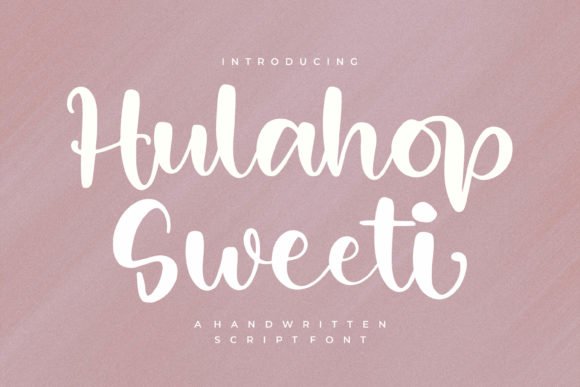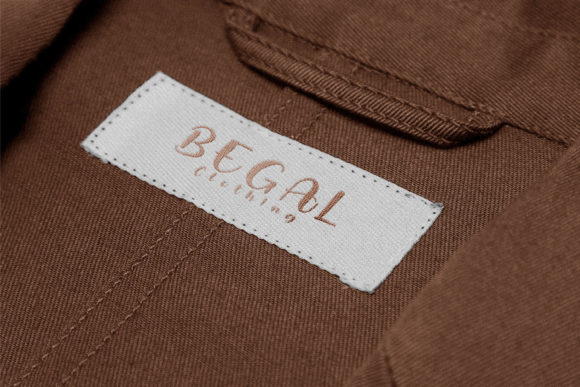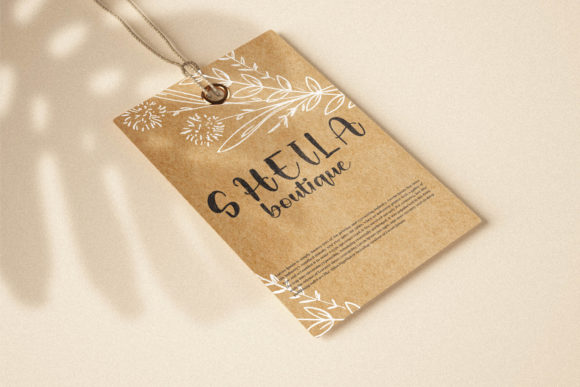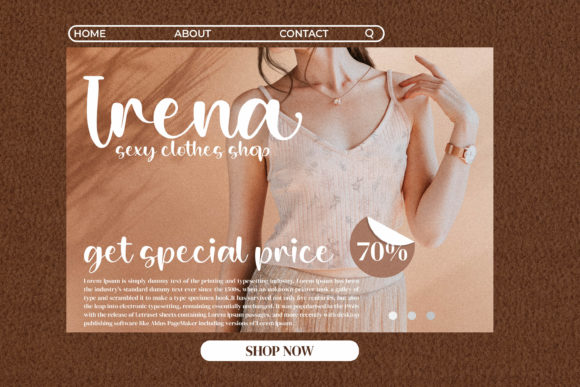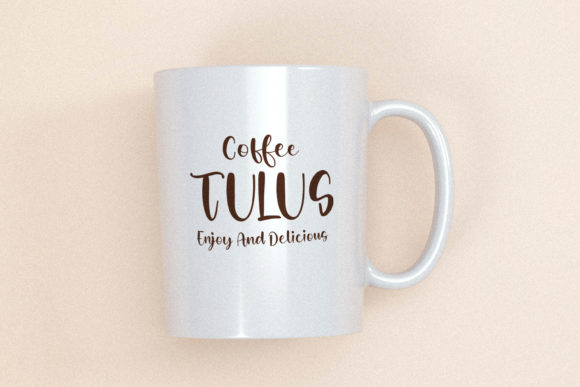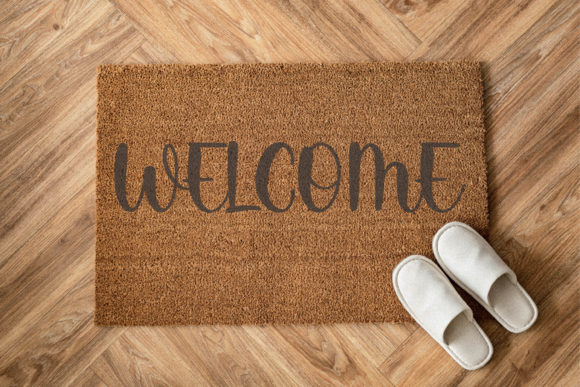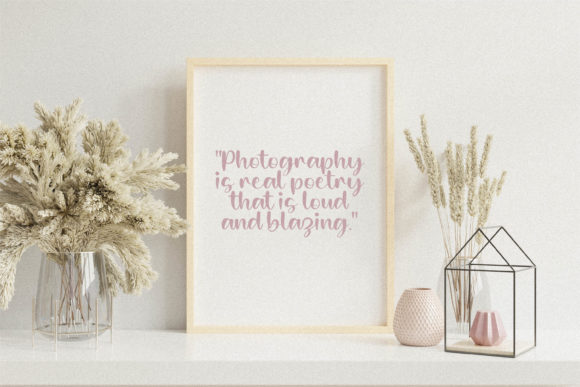
The Magic of Handwritten Letters
Have you ever stared at a beautiful handwritten letter or a delicate wedding invitation and wished you could recreate that same magic in your designs? As a designer, I’m sure you’ve found yourself searching for the perfect font to add that extra touch of elegance to your projects. This is where the Hulahop Sweet Font comes in – a truly enchanting script font that will transport your designs to a world of whimsy and romance.
With its PUA encoded design, accessing the full range of glyphs and swashes is a breeze, allowing you to unlock the full potential of this beautiful font. Whether you’re a seasoned designer or just starting out, the Hulahop Sweet Font is an invaluable addition to your toolkit, offering endless possibilities for creating stunning, one-of-a-kind designs that will leave a lasting impression.
Hulahop Sweet Font Key Features
- Font Family: Hulahop Sweet is a sweet, whimsical, and playful font family designed for various creative applications.
- Character Set: Includes a wide range of characters, including uppercase and lowercase letters, numbers, punctuation marks, and special characters.
- Unique Characteristics: Features a unique, hand-drawn style with subtle imperfections, giving it a personal and charming touch that sets it apart from other fonts.
Hulahop Sweet Font Review
Overall, I think Hulahop Sweet Font is a lovely addition to any designer’s toolkit. ✨ Its playful, whimsical vibe makes it perfect for projects that need a touch of fun and personality. I particularly enjoy the way it handles uppercase letters, which gives the font a nice, hand-drawn feel.
One of the standout features of Hulahop Sweet Font is its versatility. ✨ It’s great for headings, titles, and even body text in certain contexts. I’ve used it for a variety of projects, from children’s books to social media graphics, and it always seems to add a bit of magic to the design.
- Playful, whimsical vibe that’s perfect for fun projects
- Hand-drawn feel on uppercase letters
- Versatility for headings, titles, and body text
- May not be suitable for formal or professional projects
- Some letters may not be easily readable at small sizes
- Not as comprehensive as some other font libraries
Overall, I’d give Hulahop Sweet Font 4 out of 5 stars. While it’s not perfect, its unique personality and versatility make it a great addition to any designer’s toolkit. With a bit of caution and consideration for its limitations, Hulahop Sweet Font can help take your designs to the next level.
Tips for Getting the Most Out of Hulahop Sweet Font
For best results, use Hulahop Sweet Font in conjunction with bold, playful graphics and bright, pastel colors.
Hulahop Sweet Font is ideal for:
- Candy or dessert branding
- Children’s party invitations or decorations
- Summer or spring-themed designs